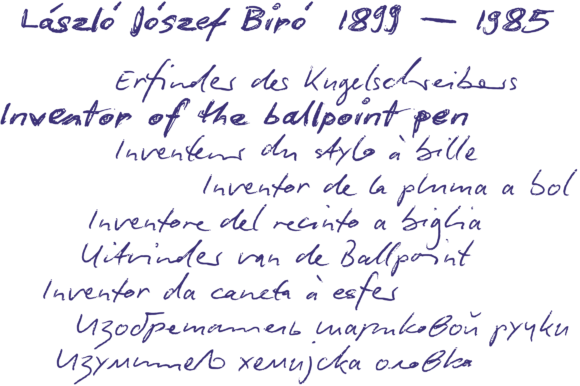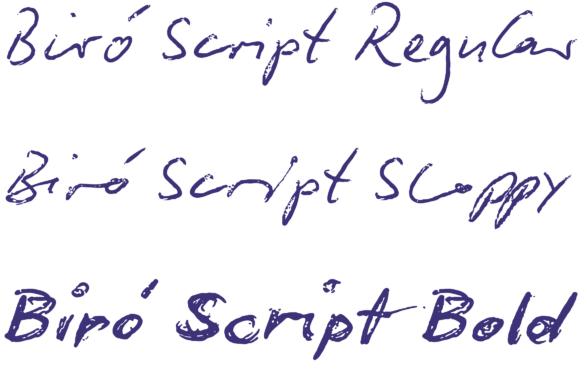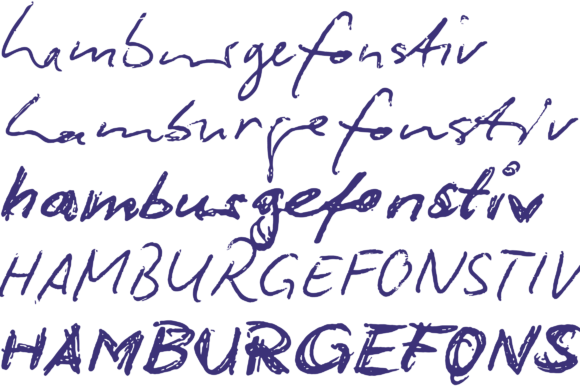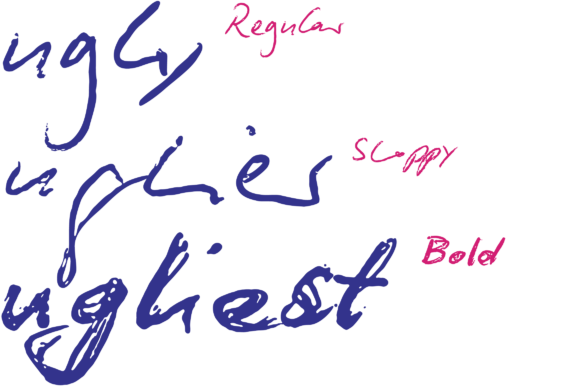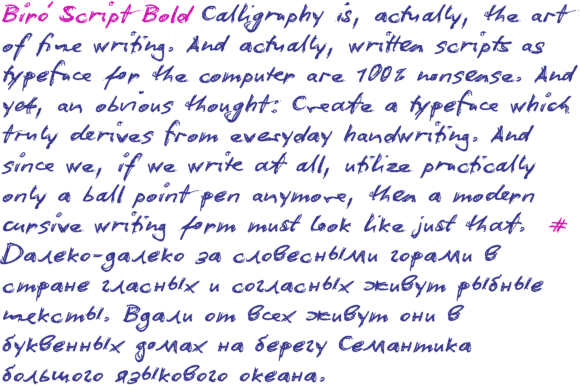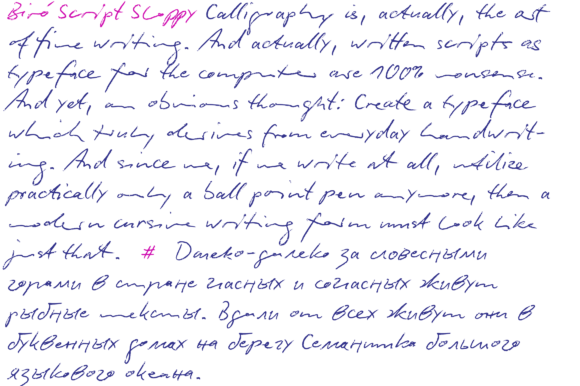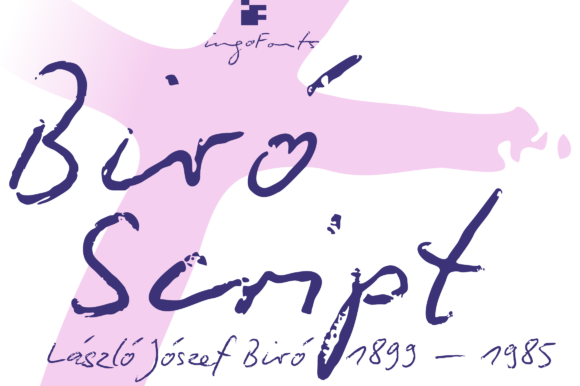
Introducing Biró Script Font: A Modern Handwritten Marvel
Are you on the hunt for a font that adds a touch of personality to your designs? Look no further than the Biró Script Font. This stunning, bold handwritten font is making waves in the design community with its unique blend of modern feel and authentic charm. In this article, we’ll dive into what makes Biró a must-have for designers and crafters alike.
The Story Behind Biró
Biró is more than just a font – it’s an expression of modern elegance and sophistication. Crafted with precision and passion, Biró brings a fresh perspective to the world of typography. Its creator aimed to produce a font that would stand out in a sea of generic typefaces, and Biró certainly delivers on that promise.
What Makes Biró Special?
So, what sets Biró apart from other fonts on the market? Here are a few key features that make it a standout:
- Unique and Bold: Biró boasts a confident, bold style that’s perfect for making a statement. Its distinctive letterforms ensure that your text won’t go unnoticed.
- Modern Feel: Despite its bold nature, Biró maintains a modern and sleek appearance. This makes it incredibly versatile for a wide range of design applications, from branding and advertising to packaging and more.
- Authentic and Handwritten: Biró’s roots lie in handwritten script, giving it an authentic, personal touch. This aspect makes it ideal for projects where you want to convey warmth and individuality.
Uses for Biró Script Font
The versatility of Biró means it can be used in a multitude of design projects. Here are some ideas to get you started:
- Branding and Logos: Create a memorable brand identity with Biró. Its uniqueness ensures your logo will stand out.
- Invitations and Cards: Add a personal touch to your invitations, greeting cards, and other paper goods with Biró’s charming script.
- Advertising and Marketing: Use Biró in your advertising materials to grab attention and convey your message in a bold, modern way.
- Web Design: Incorporate Biró into your website design to add personality and style to your online presence.
Tips for Using Biró Effectively
To get the most out of Biró, consider the following tips:
- Mix and Match: Combine Biró with other fonts to create visual interest. Its bold nature makes it a great choice for headings, while a simpler font can be used for body text.
- Play with Colors: Biró looks great in a variety of colors. Experiment with different hues to find the perfect match for your design.
- Keep it Simple: While Biró is bold, don’t overcrowd your design. Let the font be the focal point and use whitespace effectively to enhance your message.
Biró Script Font is a game-changer for designers and crafters looking to add a unique, modern touch to their projects. Its bold, handwritten style coupled with a contemporary feel makes it an excellent choice for a wide range of applications. Whether you’re working on branding, advertising, or personal projects, Biró is sure to make your designs pop. So why wait? Give Biró a try today and see how it can elevate your design work to new heights.
- Q: Is Biró suitable for body text? A: While Biró is stunning for headings and titles, its bold nature might not be ideal for lengthy body text. Consider pairing it with a more readable font for body content.
- Q: How can I get the most out of Biró? A: Experiment with different sizes, colors, and pairings with other fonts. Biró’s versatility means it can be adapted to a wide range of design needs.